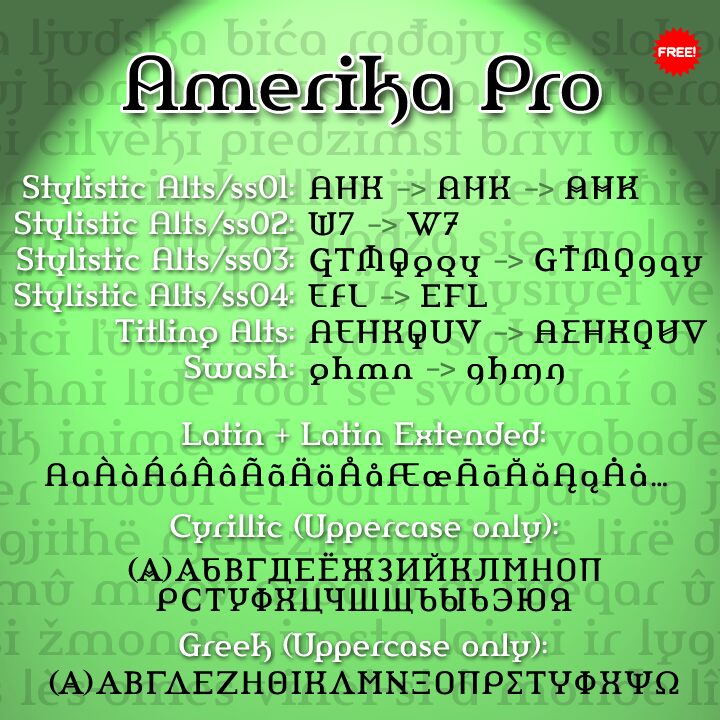
Amerika Pro from Apostrophic Labs is a free retro display serif with towering proportions and eccentric, turn-of-the-century curves. Its broad arches, abrupt slab-like feet, and dramatic shifts between thick and thin strokes give the lettering a theatrical silhouette.
As a decorative period title, it can set the scene for cabaret posters, restaurant branding, or vintage-themed events. Fashion packaging and editorial covers also suit its mix of elegance and oddity. Its stretched forms can echo ornate borders and architectural illustration.
Amerika is the 200th font released by CheapProFonts and is an upgraded version of a font by Fredrick “Apostrophe” Nader.
The character set has been revised for consistent baseline placement and serif thickness, and proper overshoots have been implemented. All alternate letterforms, along with some new ones, are included as OpenType alternates and are also available with accents. The Greek and Cyrillic letterforms are properly encoded and kerned.